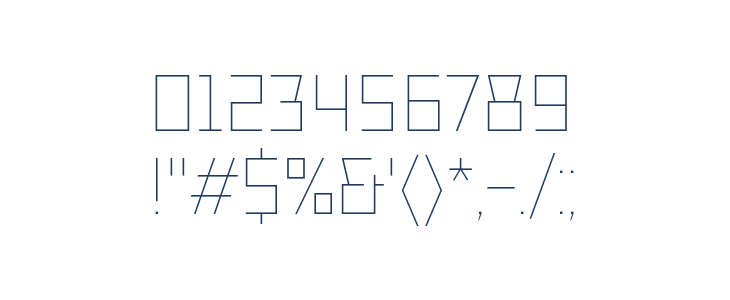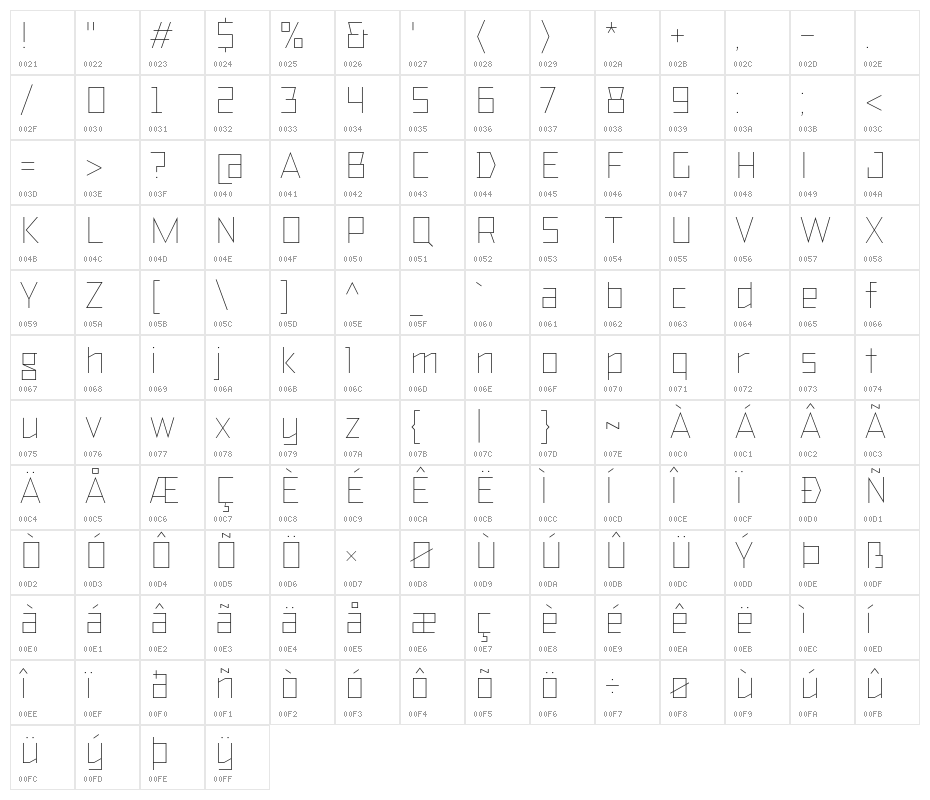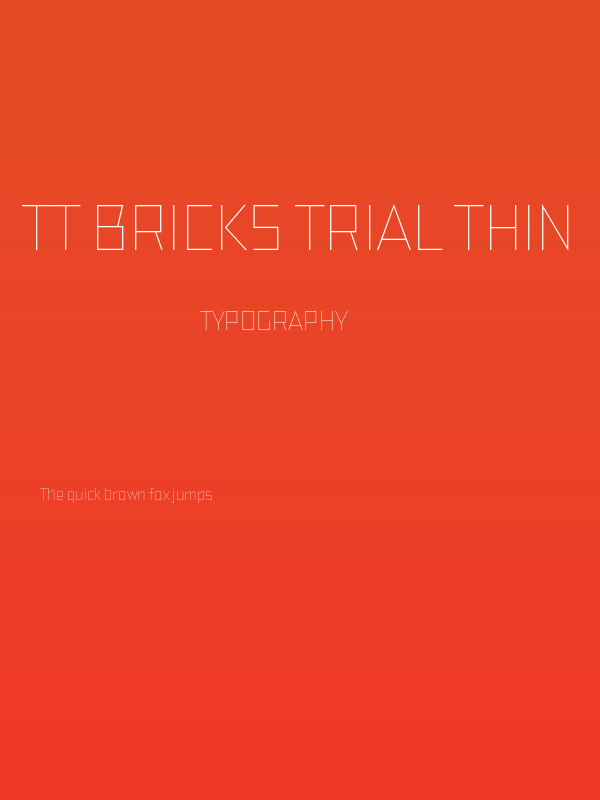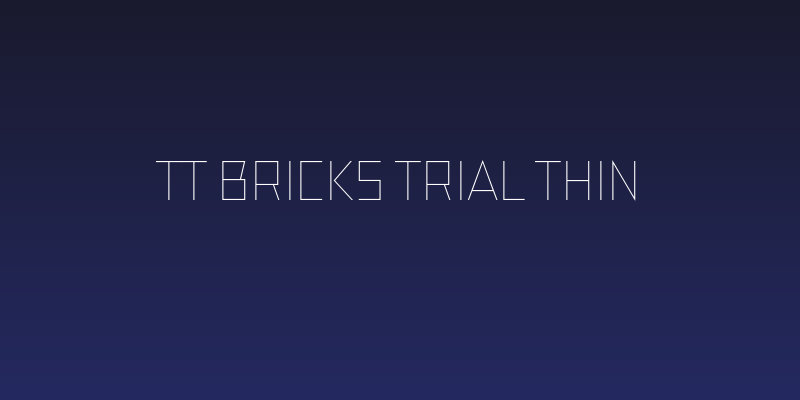
TT Bricks Trial Thin Font
TT Bricks Trial Thin Description
This font features a geometric and minimalist design, characterized by thin, straight lines and angular shapes. The uppercase and lowercase letters maintain a consistent height, creating a uniform appearance. The numerals and special characters follow the same geometric style, enhancing the overall cohesiveness. The font's simplicity and clarity make it suitable for modern and contemporary design projects. Its thin strokes and angular forms give it a distinctive, futuristic look, while maintaining readability.
| Proposed Projects | Ideal for modern branding, tech-related designs, and minimalist posters. |